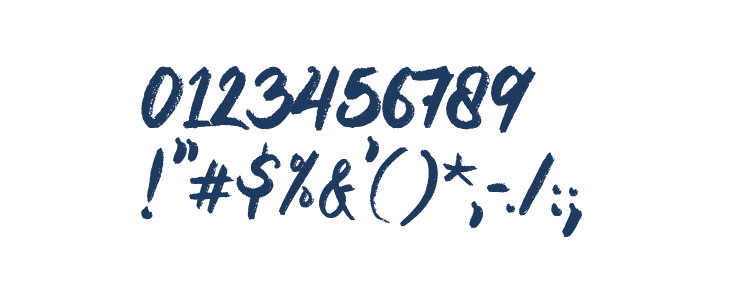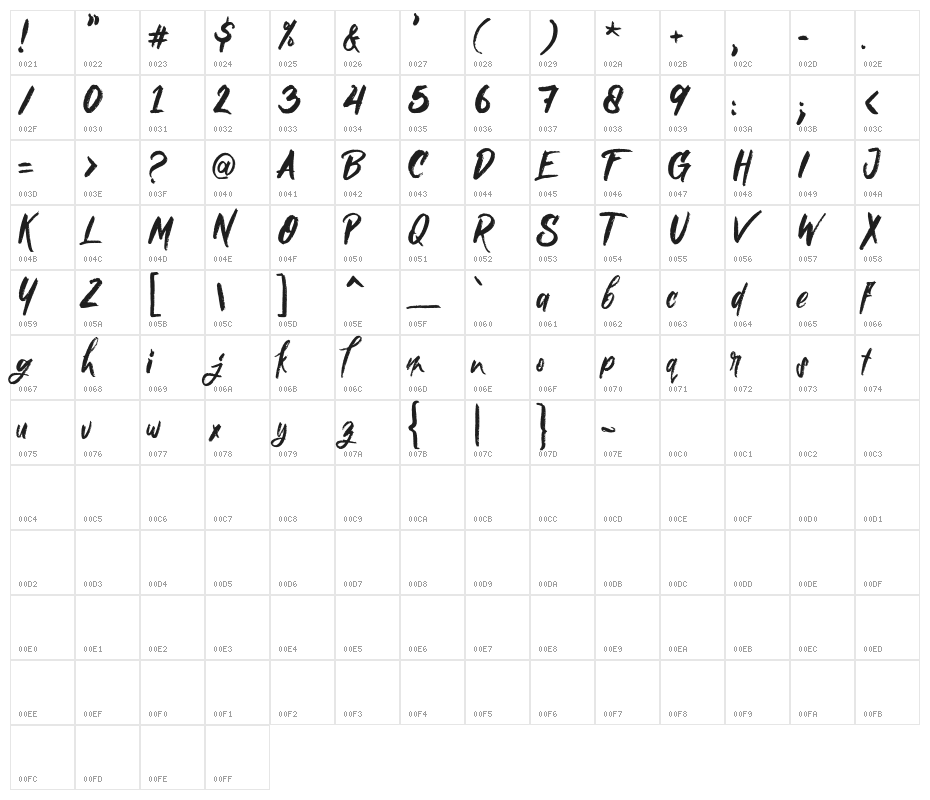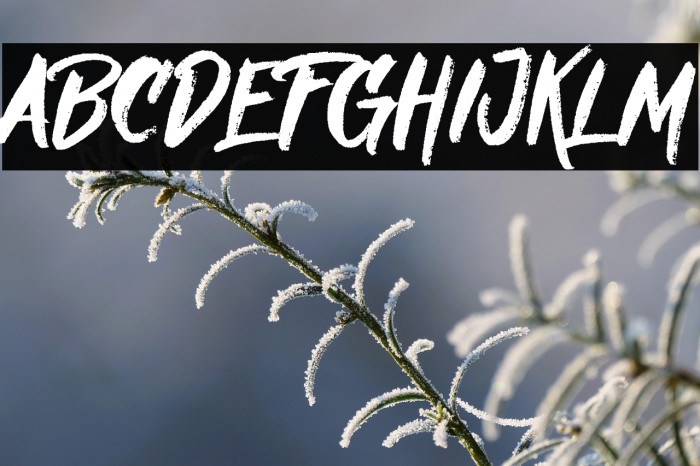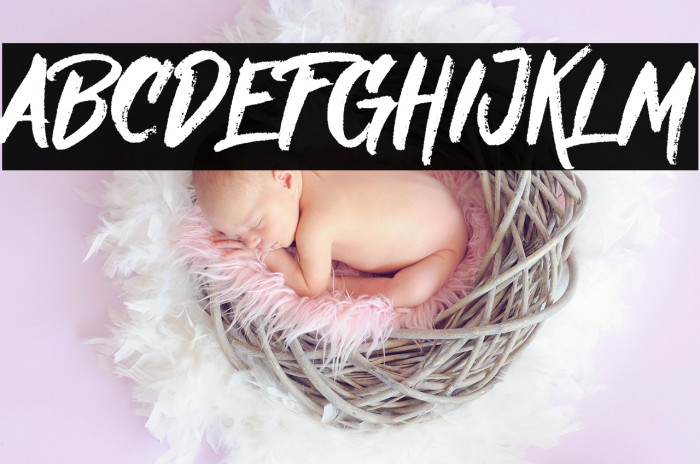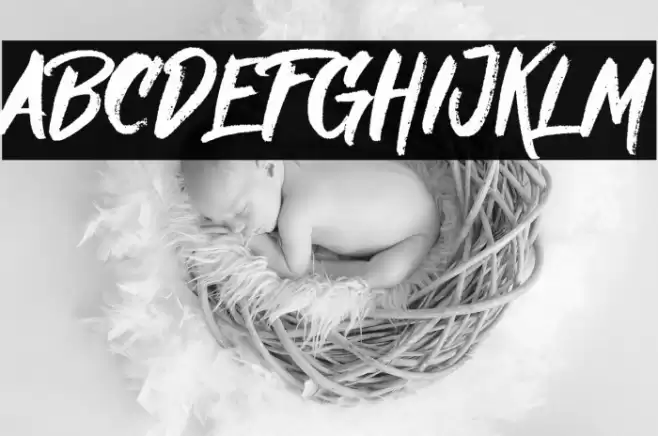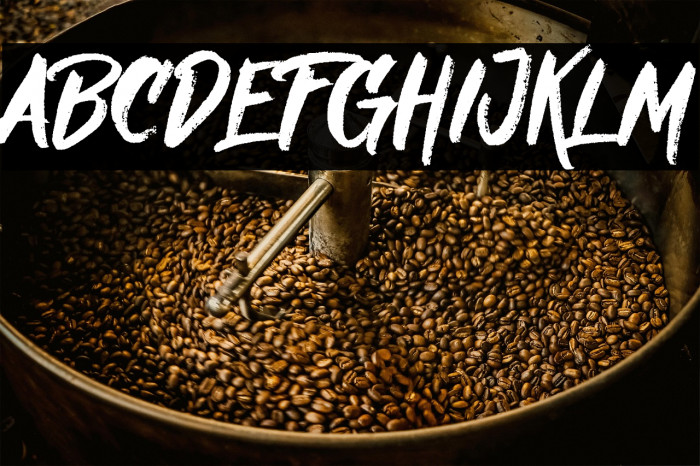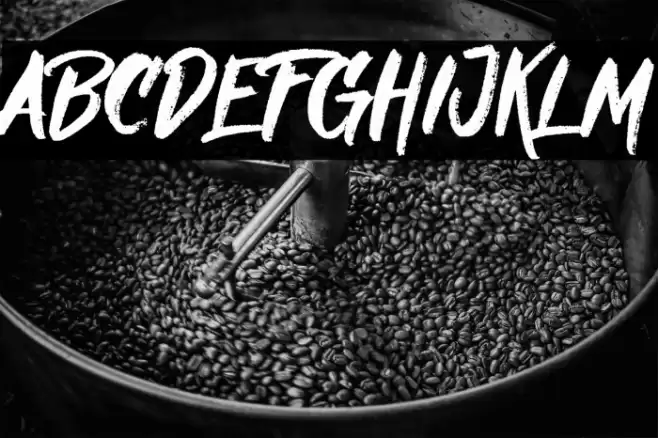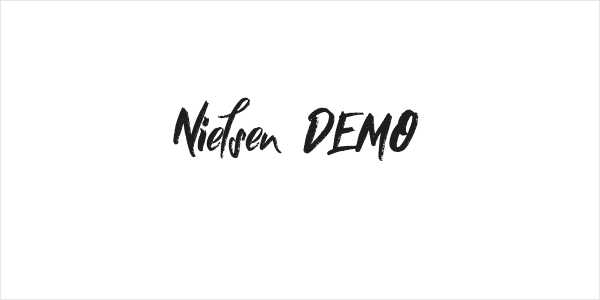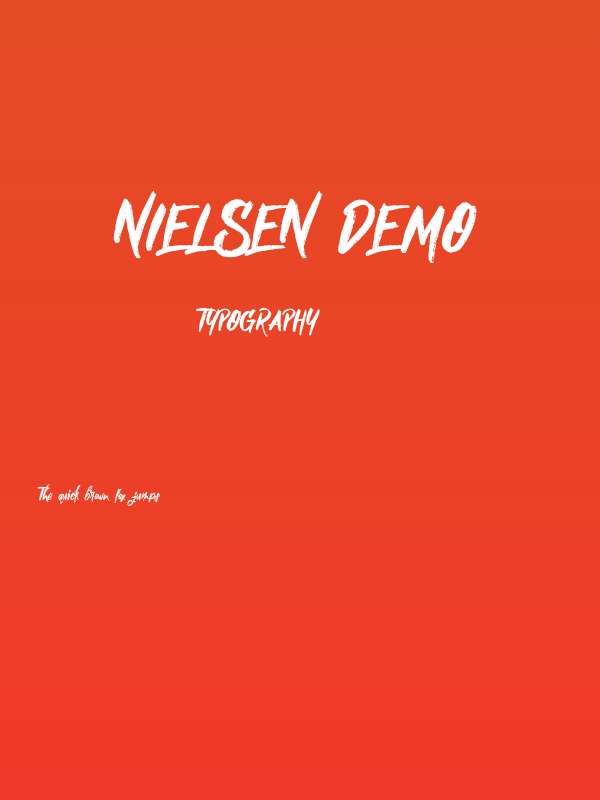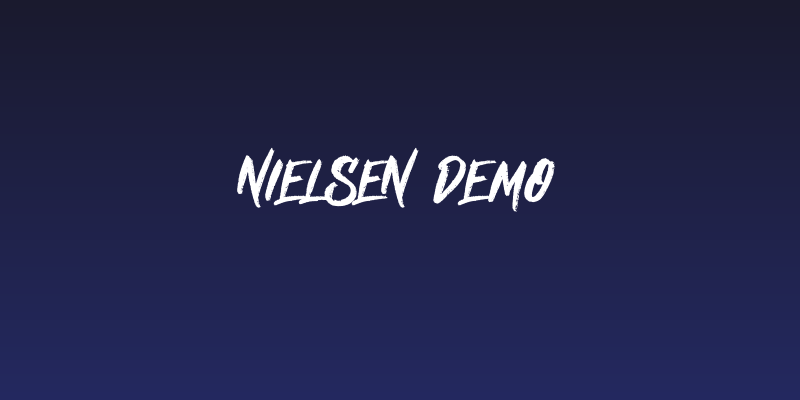
Nielsen DEMO Font
Nielsen DEMO Description
This font exhibits a bold and expressive handwritten style, characterized by its dynamic and energetic strokes. The letters are crafted with a brush-like texture, giving them a raw and artistic appearance. The uppercase letters are bold and commanding, while the lowercase letters maintain a fluid and connected form. Numbers and special characters follow the same expressive style, ensuring consistency throughout the font. The overall design is perfect for projects that require a personal and creative touch, such as artistic posters, branding materials, or any design that aims to convey a sense of individuality and flair.
| Proposed Projects | Ideal for artistic posters, branding materials, and creative design projects. |